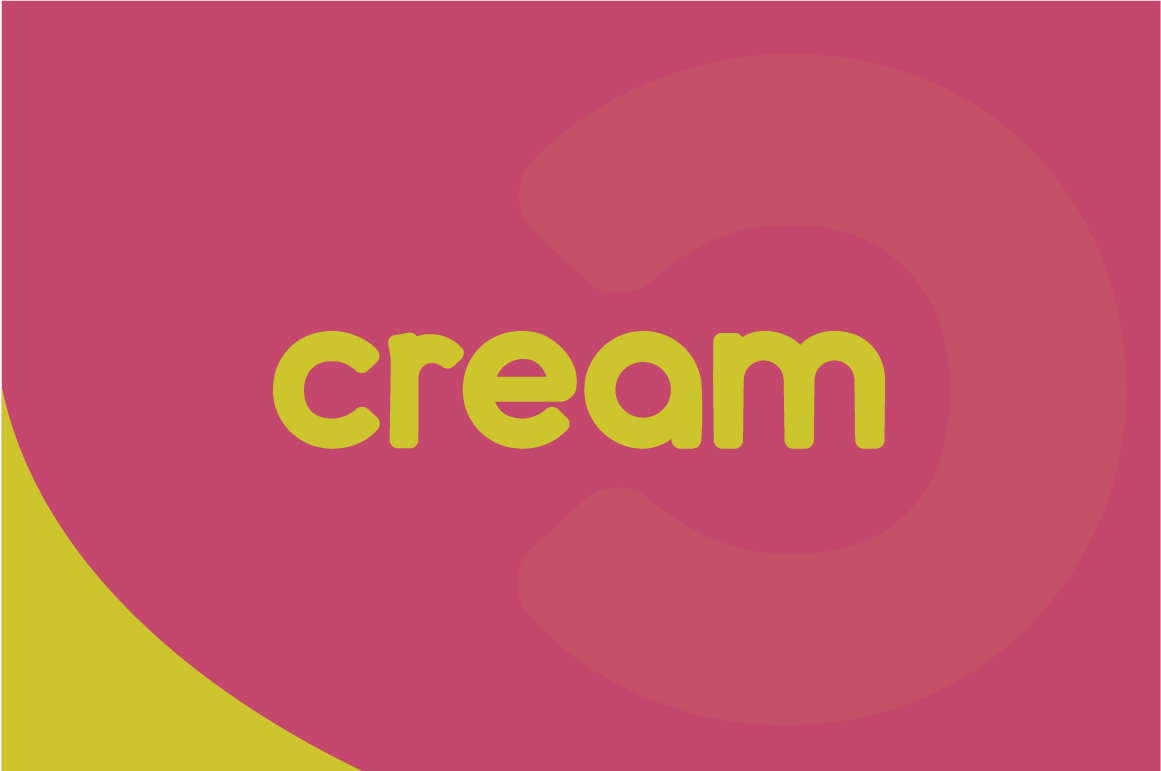
Cream is suitable for continuous text through it’s beautifully modulated letters and balanced stroke width. With more than 560 glyphs, you can use cream in almost every language on the basis of the latin alphabet. The full version also has optimized ligatures for fb, fk and similar ones. You can use the three extra styles for a unique eyecatcher.